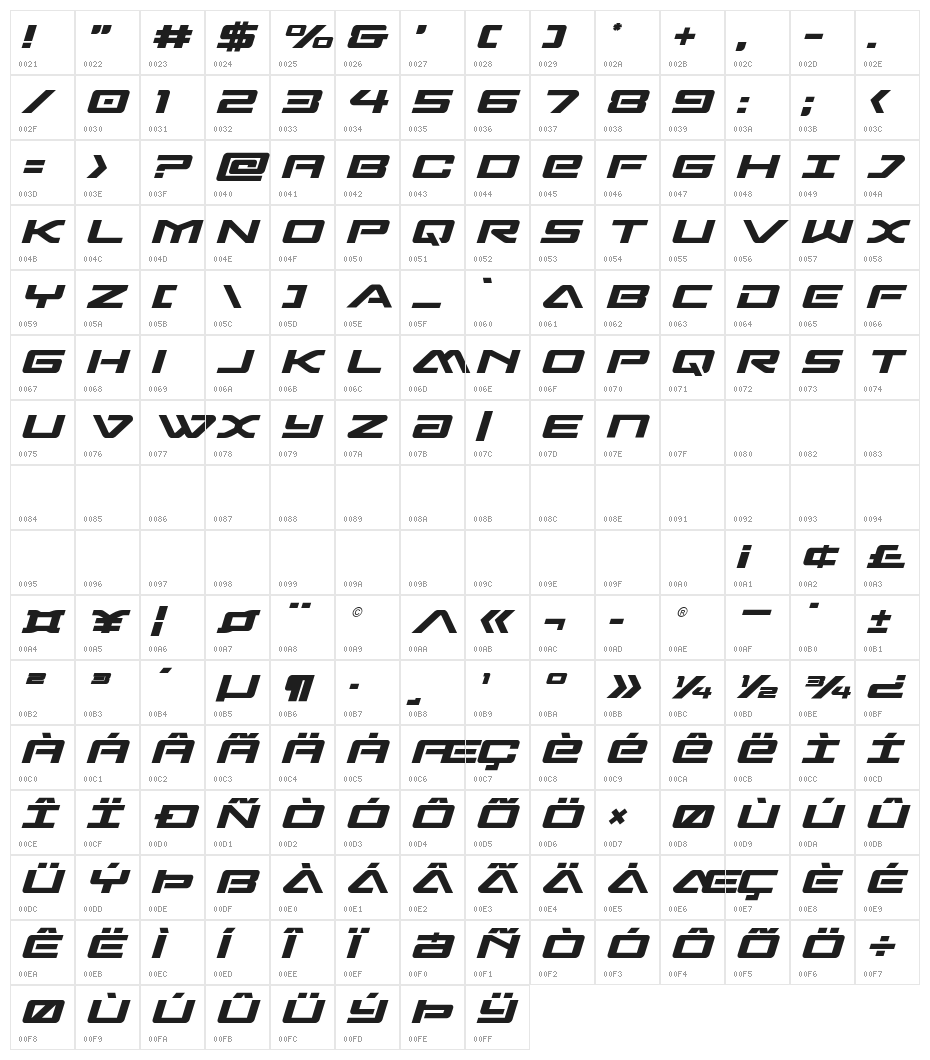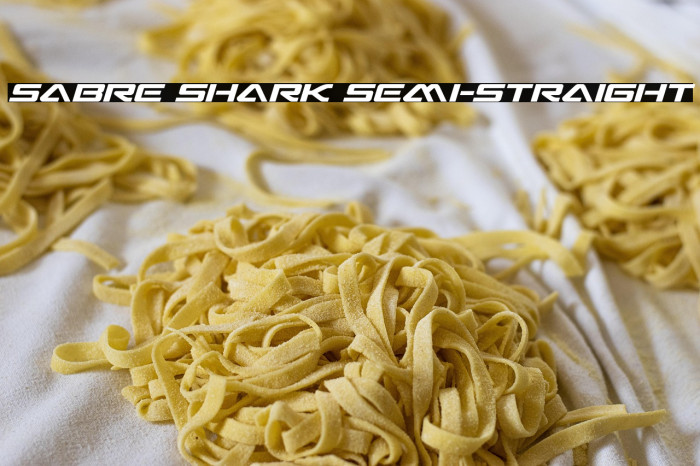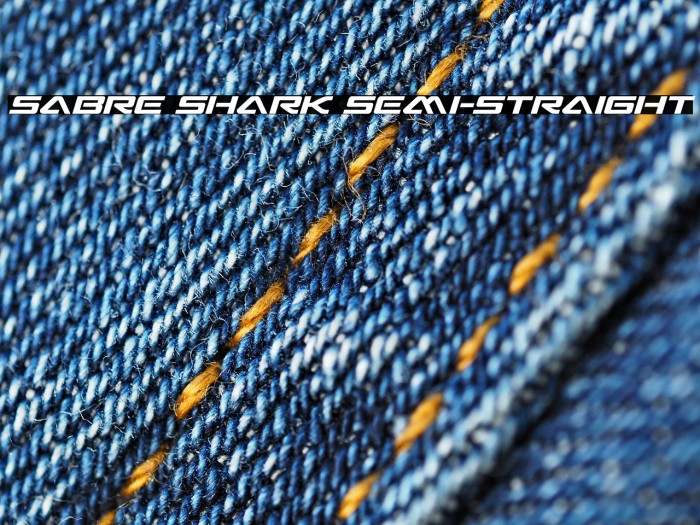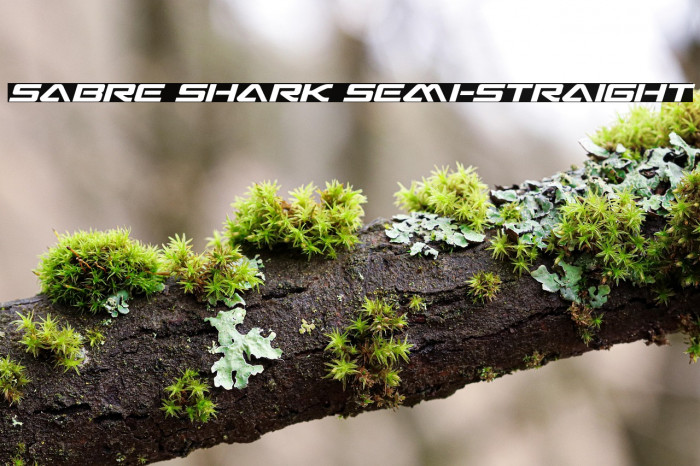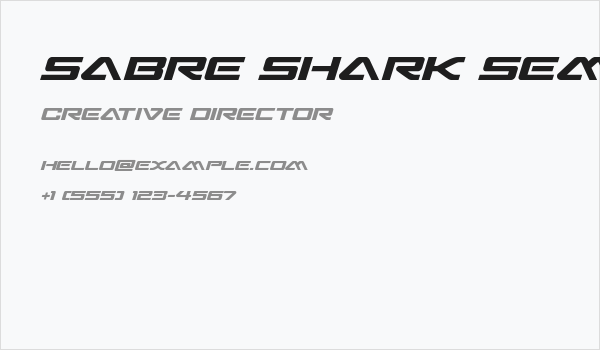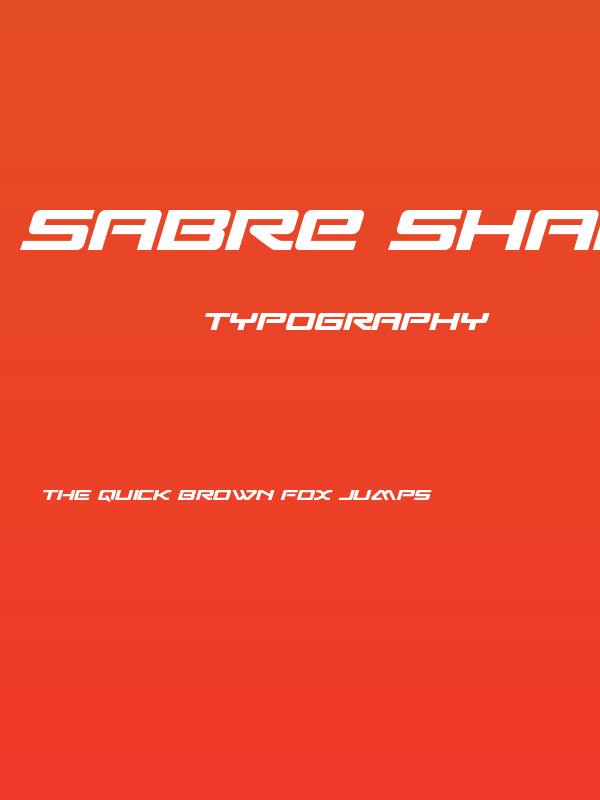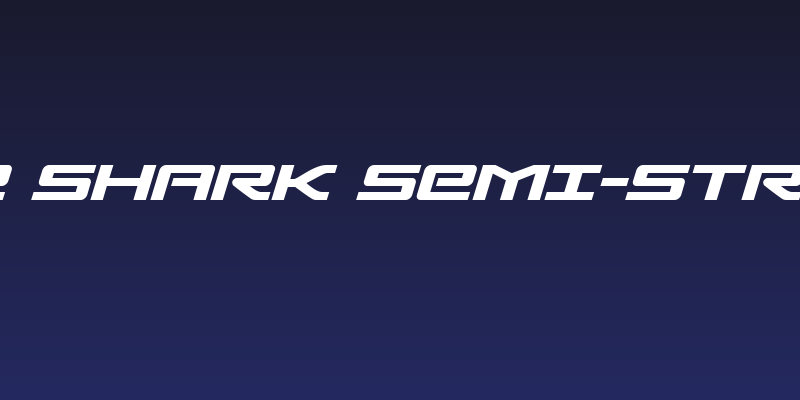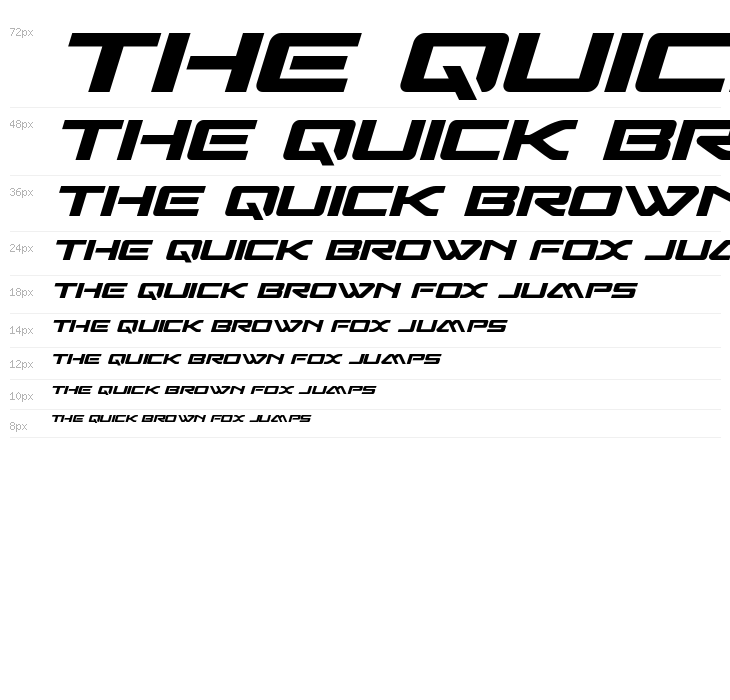
Sabre Shark Semi-Straight Font
Sabre Shark Semi-Straight Description
This font features a bold and futuristic design with sharp, angular edges and a distinct slant that gives it a dynamic and forward-moving appearance. The uppercase and lowercase letters maintain a consistent style, with a strong emphasis on geometric shapes and clean lines. The numerals and special characters are crafted to match the overall aesthetic, ensuring a cohesive look across all text elements. The font's unique style makes it stand out, suitable for projects that require a modern and edgy feel.
| Proposed Projects | Ideal for sci-fi themed designs, tech branding, video game titles, and modern advertising campaigns. |